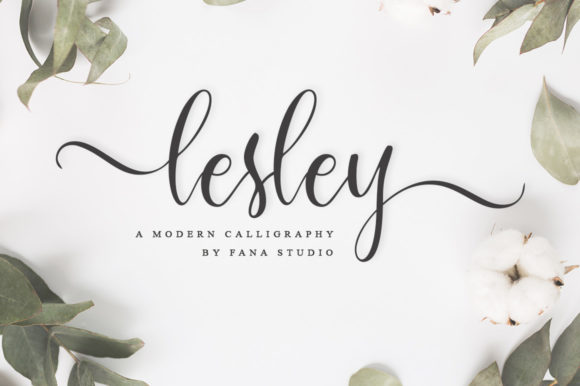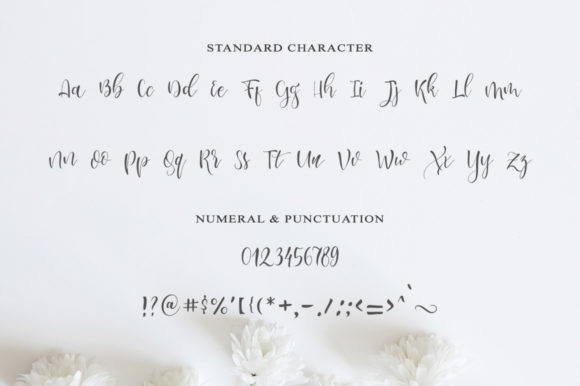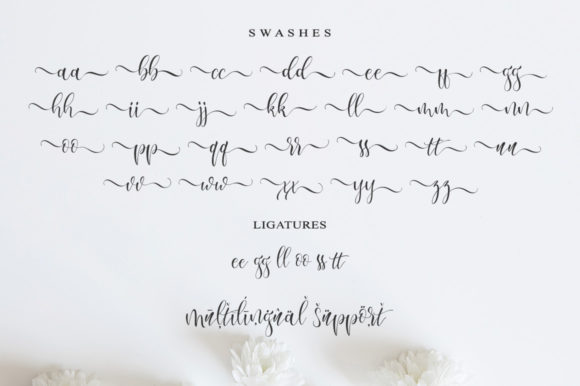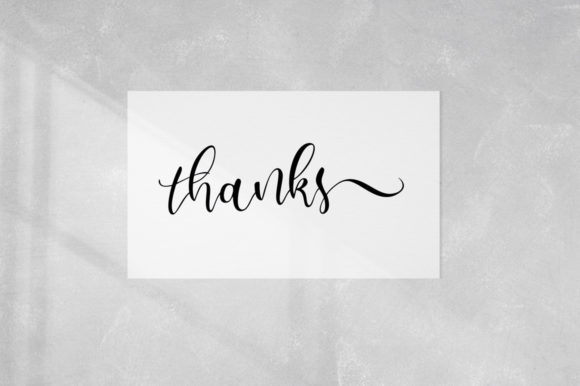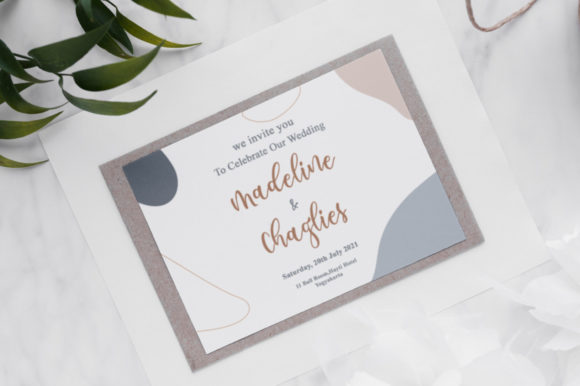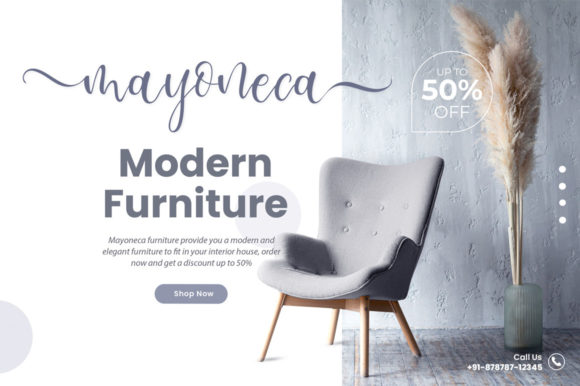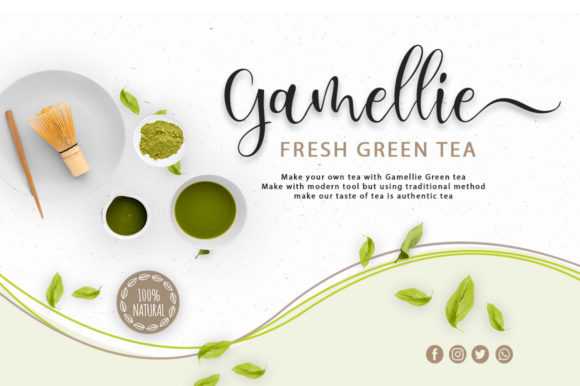
Lesley Script is a stunning calligraphy typeface that exudes romance and sweetness. With its elegant and flowing characters that dance along the baseline, it brings a touch of luxury and sophistication to any design project.
The romantic nature of Lesley Script is evident in its beautifully crafted letterforms. Each character is carefully designed with delicate strokes and graceful curves, creating a sense of beauty and elegance. The characters flow seamlessly together, giving the font a harmonious and romantic look.
One of the standout features of Lesley Script is its luxurious spark. The font radiates a sense of opulence and sophistication, making it perfect for creating high-end designs. Whether you’re designing wedding invitations, branding materials, greeting cards, or any other project that requires a touch of luxury, Lesley Script will elevate your design and leave a lasting impression.
The font’s PUA encoding allows you to easily access its amazing glyphs and ligatures. This means you have access to a wide range of decorative swashes, alternate characters, and ligatures, providing you with endless possibilities to customize and enhance your designs. These additional glyphs and ligatures add even more elegance and uniqueness to your typography.
Lesley Script is versatile and can be used for various design projects. Its romantic and sweet nature makes it ideal for wedding invitations, love letters, and other romantic-themed designs. It also works well for branding and logo designs, adding a touch of sophistication and elegance to your brand identity. Additionally, it can be used for greeting cards, quotes, and any other project where you want to convey a sense of romance and luxury.
In summary, Lesley Script is a romantic and sweet calligraphy typeface that brings a luxury spark to your design projects. Its elegant and flowing characters, combined with its PUA encoding, offer a range of customization options to create stunning and unique designs. Whether you’re designing wedding invitations, branding materials, or any other project, Lesley Script will add a touch of romance and sophistication.